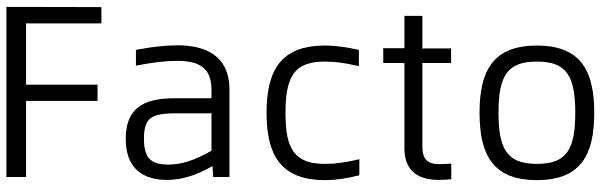
Facto
A simple, mechanical typeface without distractions. Slightly condensed curves are developed from a compact grid layout to produce a crisp, fresh and legible type family. The unadorned letterforms work perfectly with complex information-based...